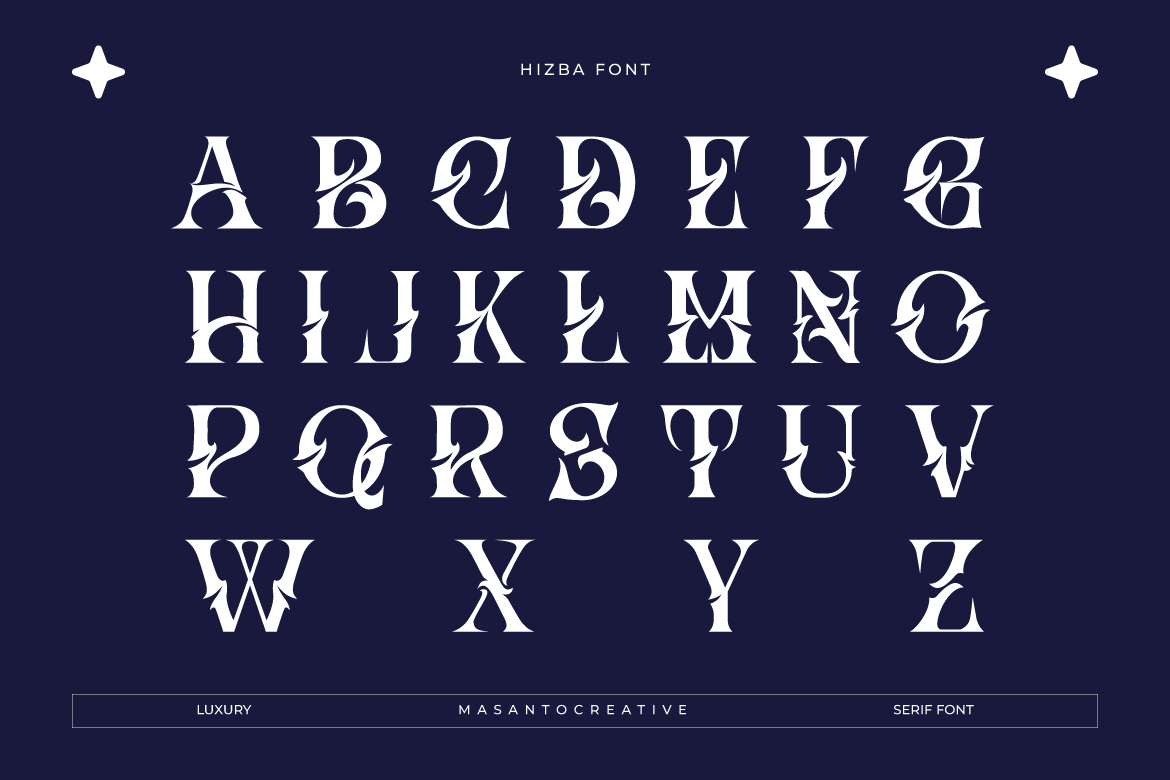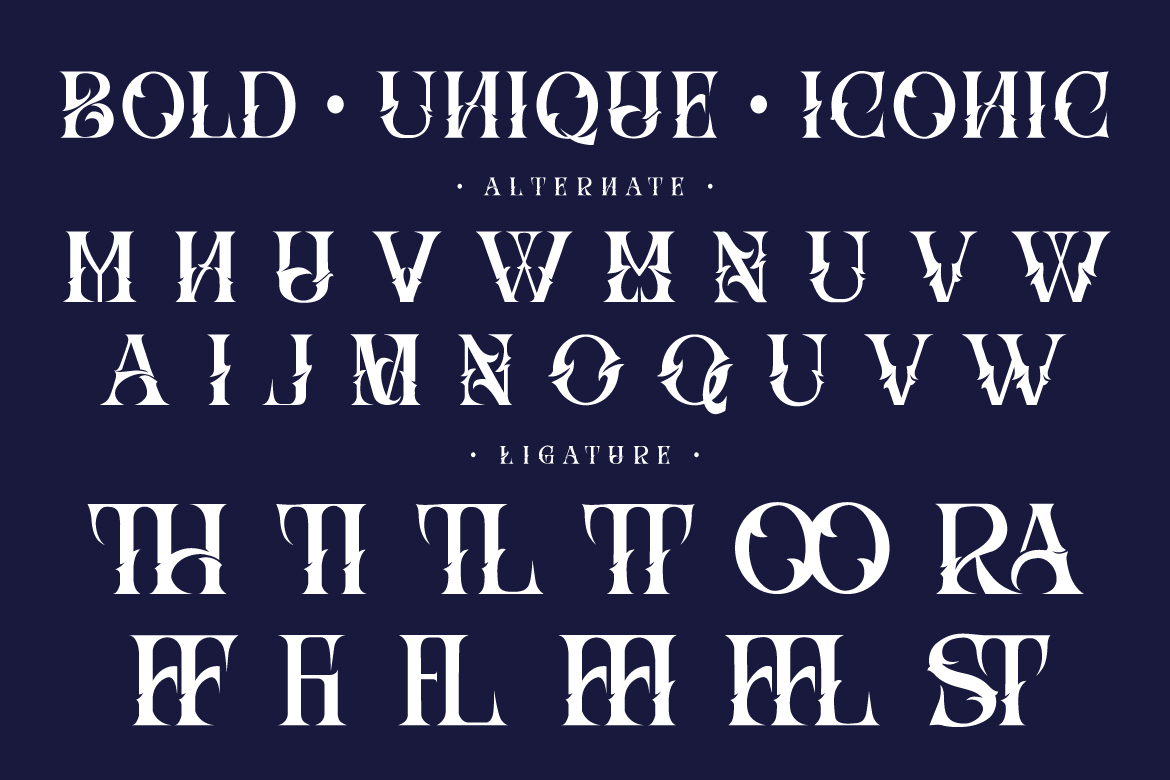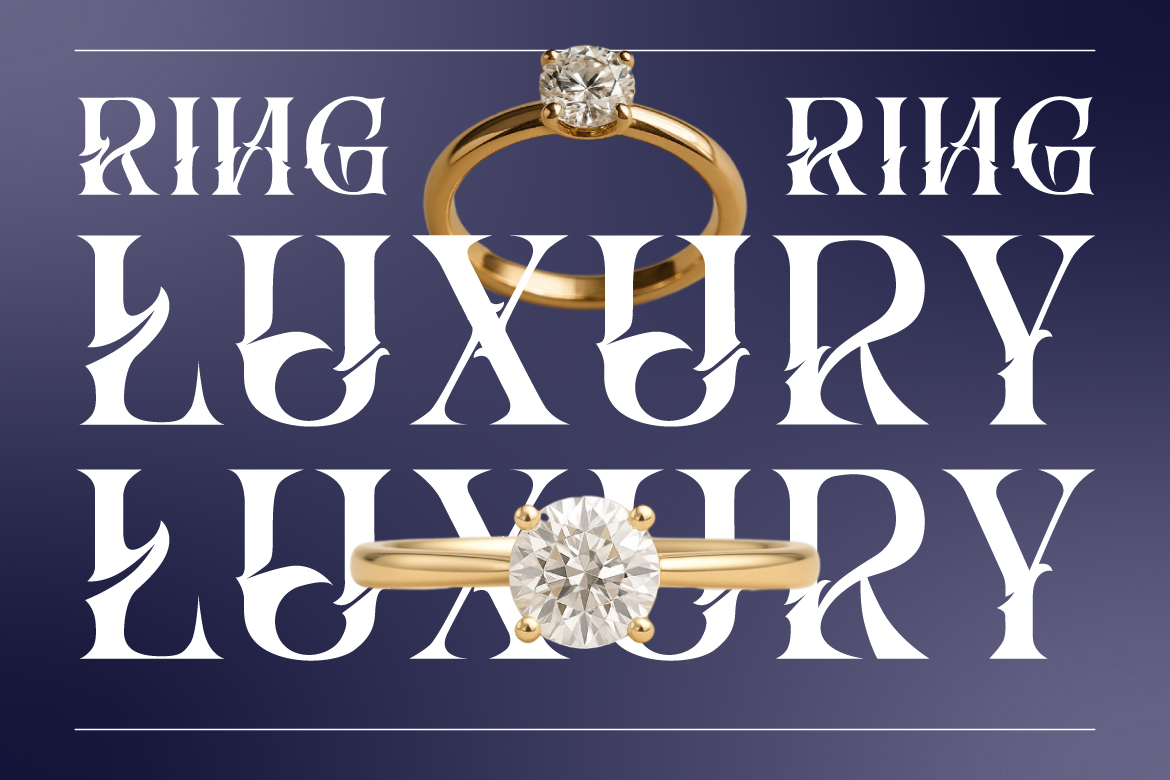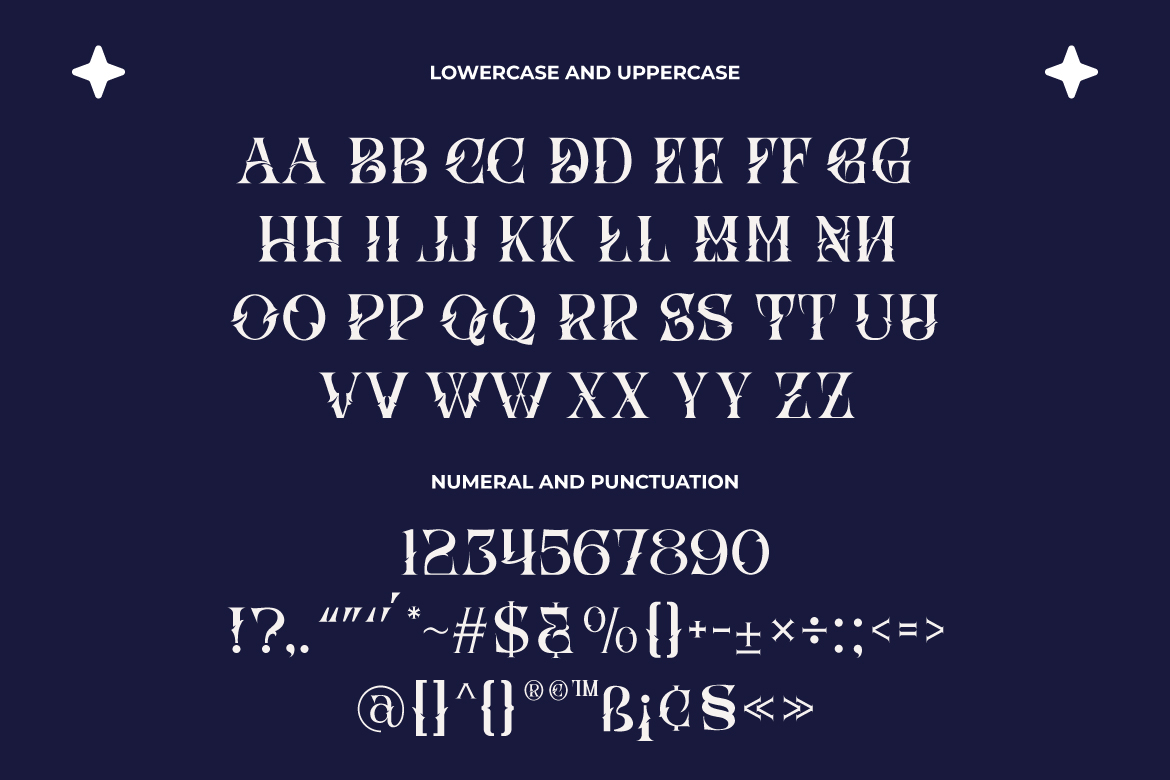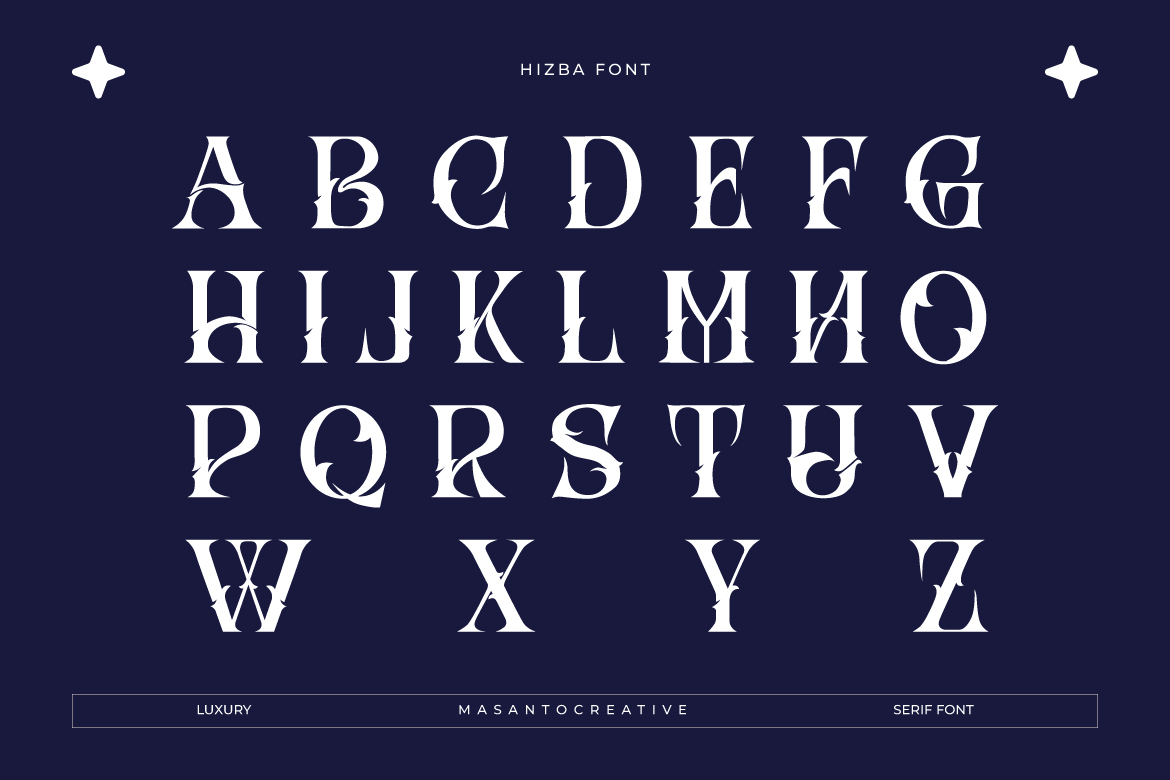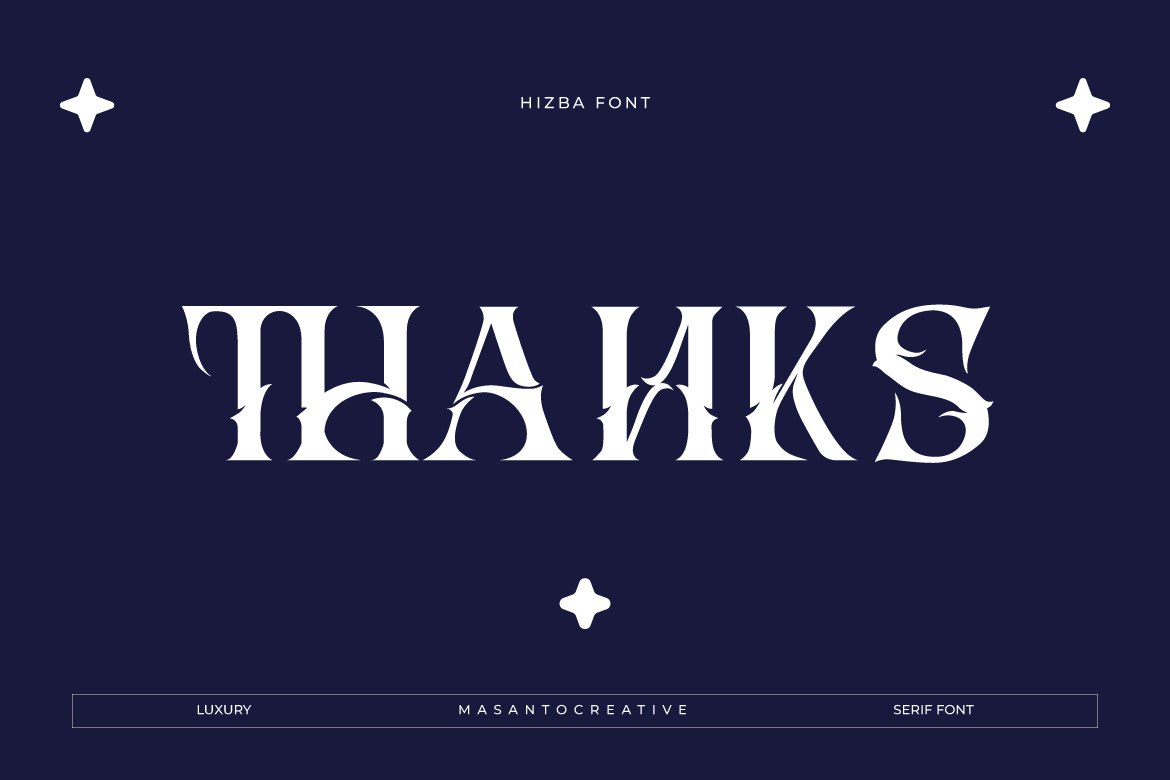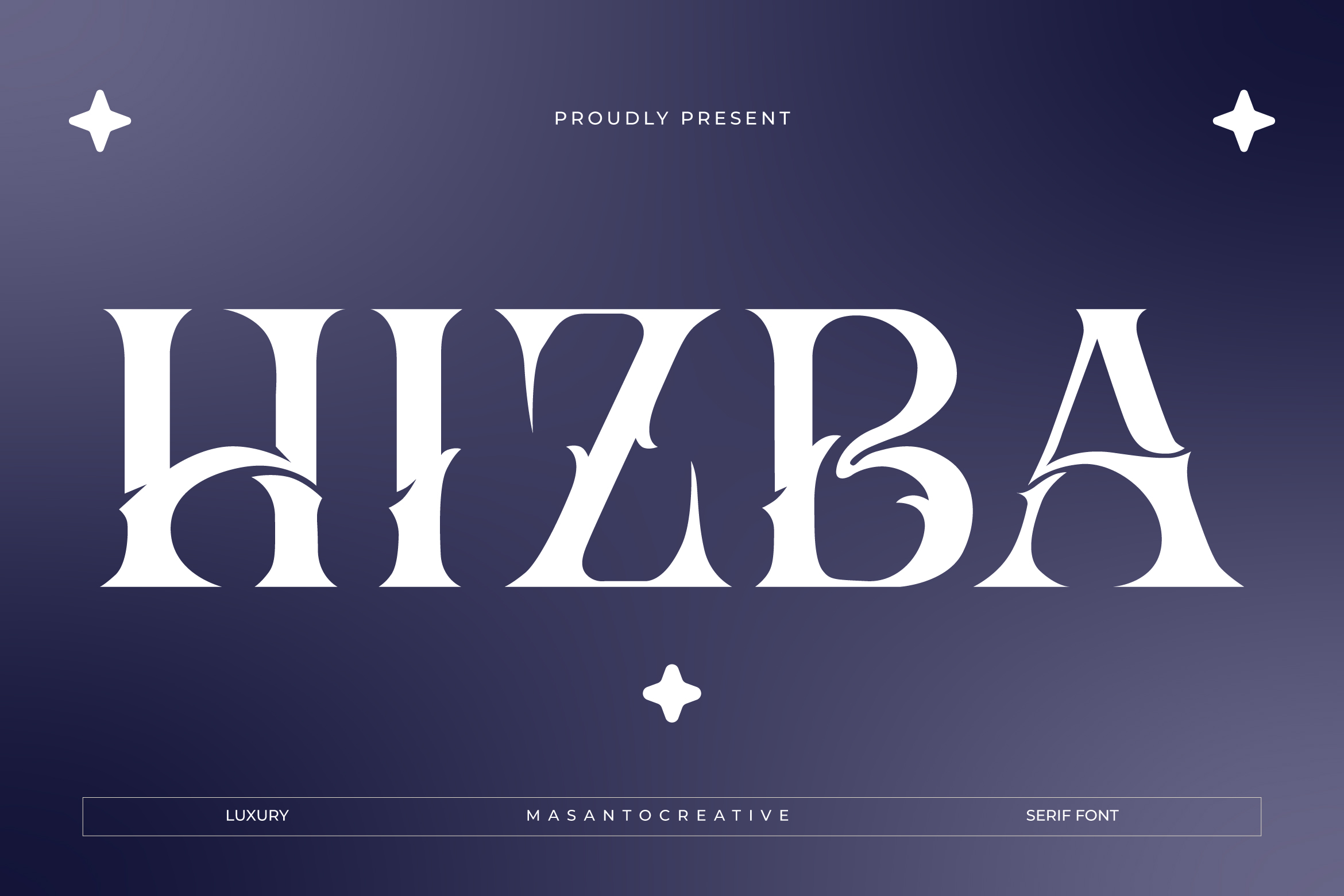
Introduction to Hizba Luxury Serif Font
In today’s competitive design landscape, choosing the right typeface is more than just a stylistic decision—it’s a strategic move that defines how a brand is perceived. If you’re looking for a font that delivers sophistication, artistic detail, and a high-end feel, Hizba – Luxury Ornamental Serif Font is a perfect choice. This typeface is crafted to elevate premium branding projects with its distinctive ornamental style. You can explore the full visual presentation and concept on its official Behance project here: https://www.behance.net/gallery/240310329/Hizba-Luxury-Ornamental-Serif-Font
What Makes Hizba Font Unique?
Ornamental Serif Style with Modern Elegance
Hizba is a display serif font that blends classic elegance with modern design sensibilities. What sets it apart is its intricate ornamental detailing, which adds a decorative yet refined touch to every letterform. Unlike standard serif fonts, Hizba embraces expressive curves and artistic strokes, making it ideal for designers who want their work to stand out.
Strong Visual Identity for Premium Design
This unique aesthetic allows Hizba to create a bold and luxurious visual identity. Whether used in branding or editorial design, the font instantly enhances the perceived value of any project.
Key Features of Hizba Font
Complete Character Set and Typography Tools
Beyond its visual appeal, Hizba offers a comprehensive set of features for professional use. It includes uppercase and lowercase characters, stylistic alternates, ligatures, numerals, and punctuation, along with multilingual support.
Best Use Cases for Hizba Font
Luxury Branding and Fashion Industry
Hizba is especially suitable for luxury branding projects such as fashion labels, beauty products, and high-end packaging. Its elegant and decorative style enhances brand perception, making products look more exclusive and visually appealing.
Logo Design and Packaging
The font’s unique letterforms make it perfect for logo creation and premium packaging design. It helps brands stand out in a crowded marketplace by delivering a memorable and distinctive look.
Editorial Design and Marketing Campaigns
Hizba also performs exceptionally well in editorial design. It is ideal for magazine headlines, posters, and marketing campaigns that require a strong visual impact and artistic presentation.
Benefits of Using Hizba Font
Build a Strong and Memorable Brand Identity
Using an ornamental serif font like Hizba helps create a strong and recognizable brand identity. Its decorative style ensures that your design stands out and leaves a lasting impression.
Enhance Emotional and Visual Appeal
Fonts play a crucial role in shaping audience perception. Hizba delivers a luxurious and refined mood, making it perfect for high-end projects that require elegance and sophistication.
Conclusion
Hizba Luxury Ornamental Serif Font is a powerful typeface that combines elegance, creativity, and functionality. With its unique ornamental design, extensive features, and wide range of applications, it stands out as an excellent choice for premium branding and high-end design projects. Whether you are creating a logo, designing packaging, or developing a marketing campaign, Hizba will bring a sophisticated and luxurious touch to your work.